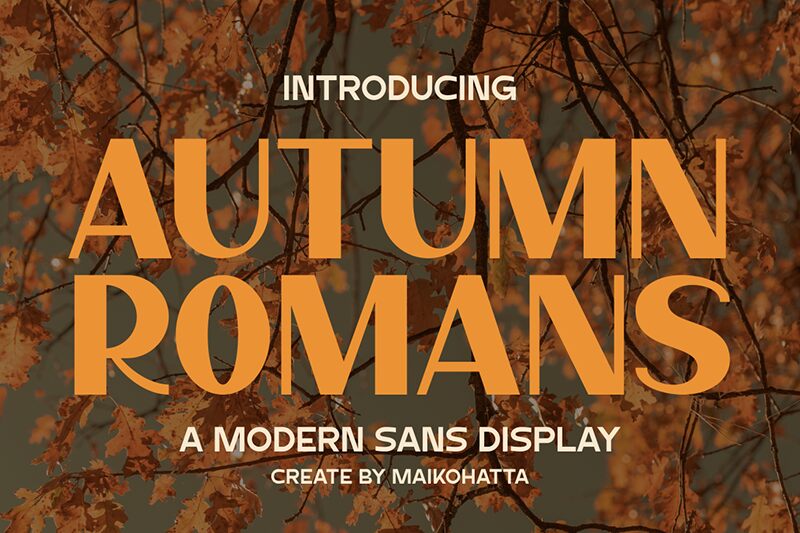
Autumn Romans
Autumn Romans font is a sans serif font designed by Gilang Ternadho. Its bold characters give it a confident and solid look that immediately stands out no matter where it’s used. That’s thanks to the classic appeal that the designer went with, which was mainly achieved by taking inspiration from elegant traditional aesthetics of old.
A free sans serif font, Autumn Romans features sophisticated design features and a refined style that makes it fit use in both printed and digital projects including book covers, posters, brands, advertising materials, websites, products labels or packaging items.